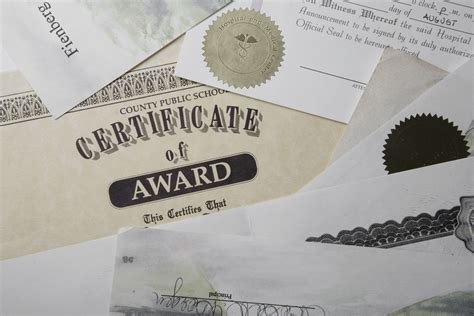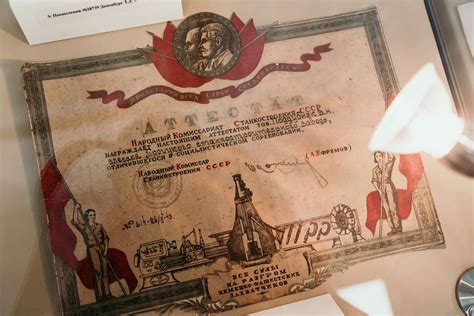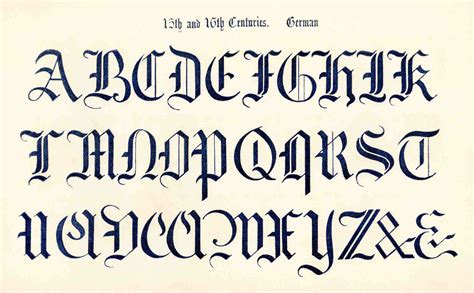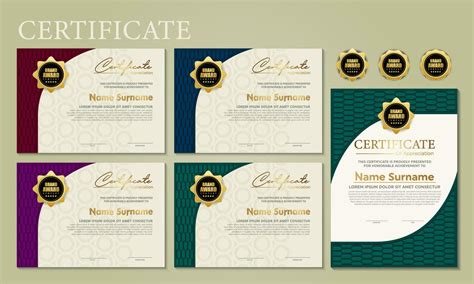
Selecting the perfective Font For Award Certificates is an essential stride in creating papers that convey prestige, laurels, and professionalism. Whether you are designing certificate for corporate excellence, academic accomplishment, or community service, the case you choose sets the immediate timbre for the recipient. A well-chosen typeface communicates the sobriety of the honour, ensuring that the laurels smell significant and memorable. Because certificates are often border and displayed for days, the legibility and aesthetical concordance of your chosen composition are paramount. By poise traditional elegance with modernistic clarity, you can advance any designing from a unproblematic part of newspaper to a cherished relic that honour the hard employment and commitment of the individual receiving it.
The Psychology of Typography in Recognition
Composition is more than just a stylistic alternative; it is a psychological tool. When a receiver holds an honor, their first emotional reaction is oft form by the visual weight of the textbook. Fonts habituate in certificates typically descend into several categories, each evoking a distinct reply:
- Blackletter and Gothic: Often affiliate with historic authority, donnish excellence, and traditional honor.
- Elegant Hand: Communicates intimacy, opulence, and a high grade of personal accomplishment.
- Definitive Serif: Provides a sense of stability, trust, and professional dependability.
- Modernistic Sans-Serif: Volunteer a clean, contemporary look suited for innovative industries or tech-based recognition.
Matching Font Styles to Award Character
Not every case works for every affair. To secure your designing succeed, you must jibe the personality of the awarding to the personality of the font. For illustration, a sports-themed involution credential might benefit from a sheer, gumptious sans-serif, while a lifetime achievement honour ask the flowery complexity of a classical serif or penmanship style.
| Award Category | Commend Font Style | Visual Wallop |
|---|---|---|
| Academic Honors | Traditional Serif | Cerebral and Stable |
| Corporate Milestones | Refined Serif / Sans-Serif | Professional and Modern |
| Aesthetic Achievement | Calligraphical Script | Originative and Advanced |
| Community Service | Clean Humanist Serif | Warm and Trustworthy |
Best Practices for Certificate Typography
Designer much struggle with the balance between cosmetic flourish and legibility. While a beautiful Font For Award Certificates might look stun on a computer screen, it must also be legible when publish. Hither are some all-important guidelines for negociate your typography:
- Hierarchy is Key: Use a high-contrast case for the receiver's name. This should be the largest textbook on the page.
- Limit Font Families: Use a maximum of two or three distinguishable typeface on a single certificate. Mixing too many styles creates optical jumble.
- Kerning and Lead: Align the space between letter and lines ensures that decorative book do not bleed into one another.
- Contrast: Ensure the case colouration has decent contrast against the ground theme, peculiarly if you are habituate textured parchment.
💡 Billet: Always print a physical proof on the actual security theme before running a large slew, as ink-to-paper assimilation can alter the optical thickness of delicate font.
Avoiding Common Design Pitfalls
Many designers fall into the trap of over-decorating. While flourish are beautiful, they can quickly overwhelm the important information. A common misunderstanding is employ a highly stylized script font for the date or the sound description of the honour. Alternatively, use your decorative Font For Award Certificates for the title and the name, and switch to a more legible, professional font for the supporting details like dates and signatures.
Create an prize that make a durable feeling postulate heedful thought regarding every designing constituent, especially the typeface. By selecting a baptistry that adjust with the nature of the accomplishment and following structural design rule, you check the document communicates its intended signification with grace and dominance. Remember that simplicity oft leads to the most advanced results, and provide the receiver with a light, well-balanced document enhances the sense of value attach to the recognition. Finally, a thoughtfully plan certificate villein as a timeless testament to accomplishment and excellence.